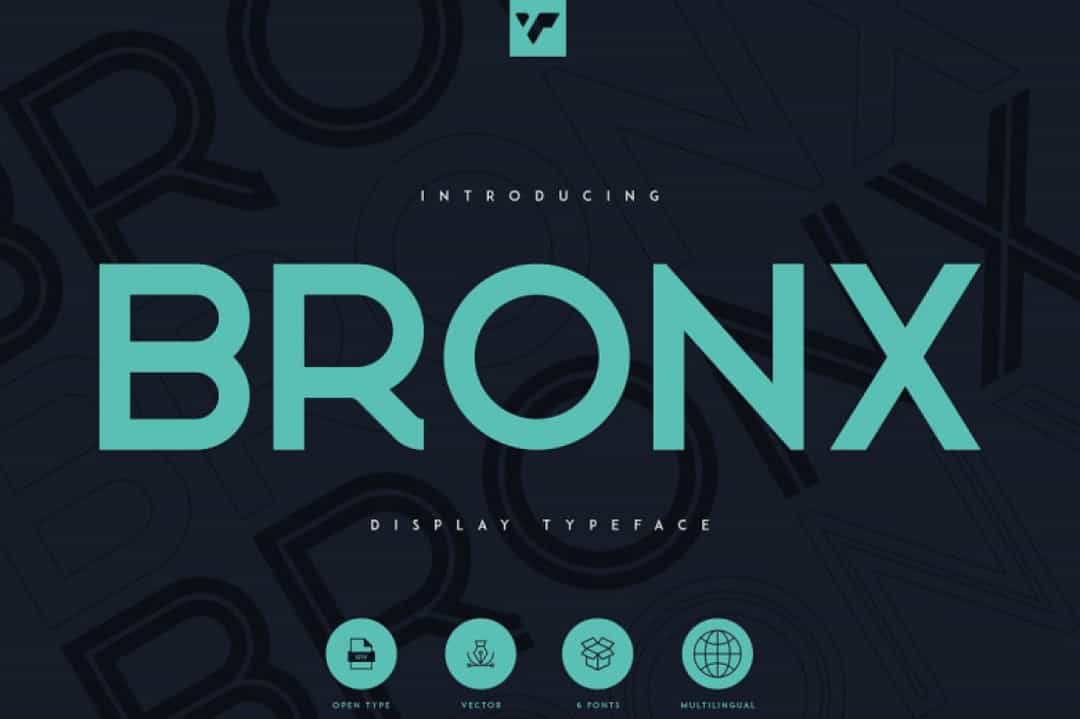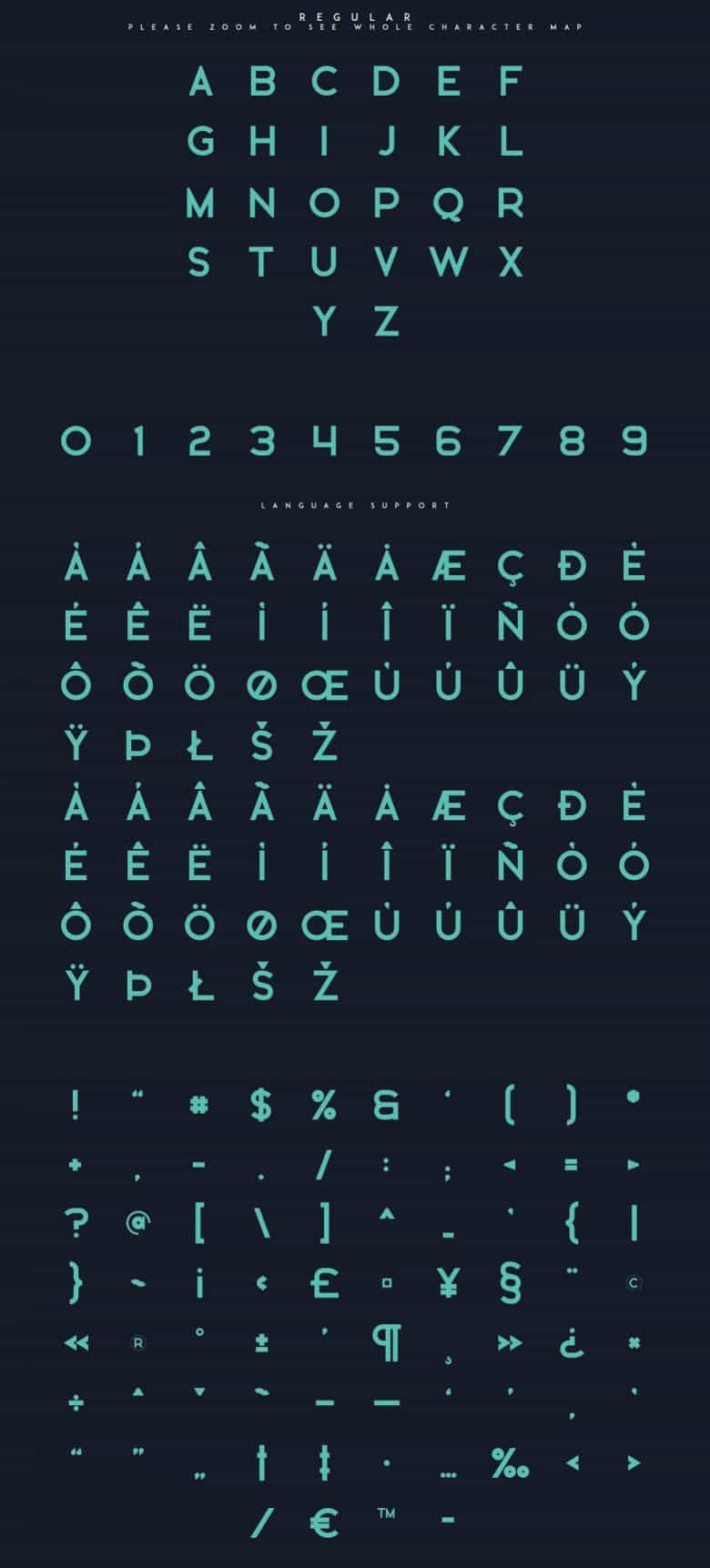
Bronx is a casual, simple typeface that comes with six different styles. It is a very universal font that can be used both for text of small size and for large print. Bronx is perfect for homeware, branding designs, packaging for products, magazines, headers for magazines – or just as pretty typography over any background image.